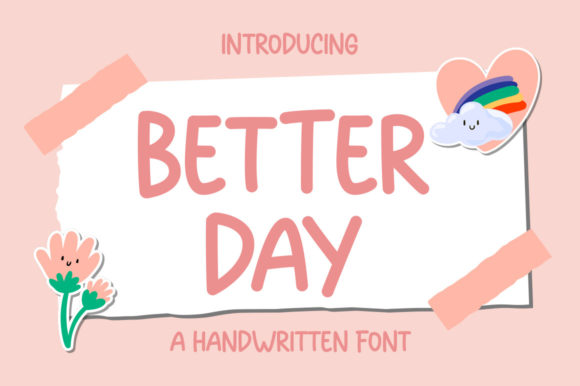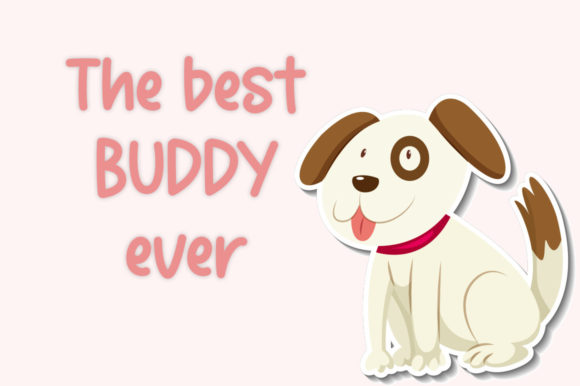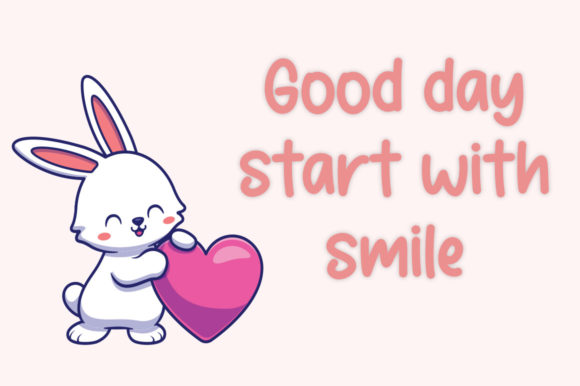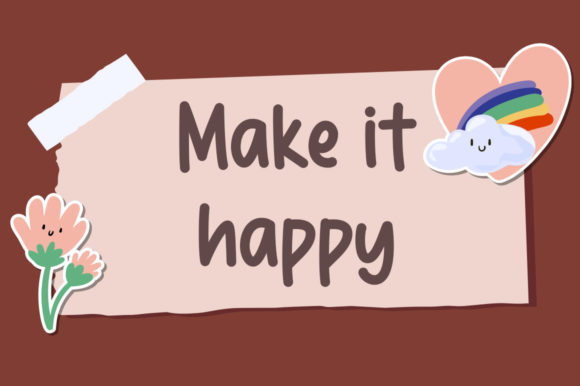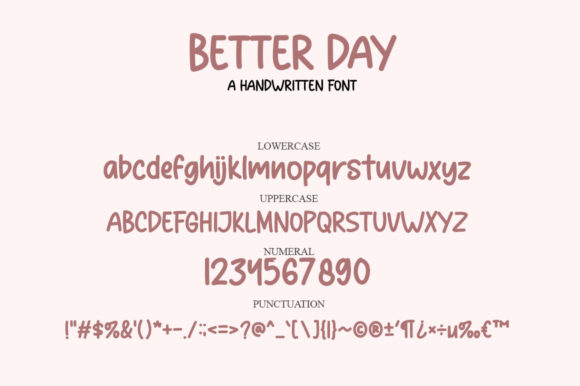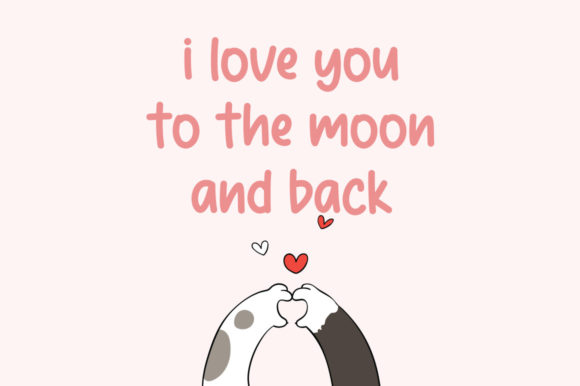
Better Day Font
About Better Day Font
“Better Day” is a cute and simple-lettered handwritten font that adds a charming and authentic touch to your designs. This font is particularly well-suited for creating chalkboard quotes, teaching materials, and other projects where a personalized and realistic look is desired.
The font’s handwritten style exudes a sense of warmth and approachability, making it perfect for educational materials and designs that aim to connect with the audience on a personal level. The simple and straightforward letterforms contribute to the font’s readability and versatility, allowing it to be used in a variety of design contexts.
Whether you’re creating educational resources, inspirational quotes, or other creative projects, “Better Day” will help you achieve a genuine and inviting aesthetic that resonates with your target audience.
In essence, “Better Day” is more than just a font—it’s a tool for creating designs that feel authentic, approachable, and relatable. Its cute and simple-lettered handwritten style brings a touch of realism to your creations, making them more engaging and memorable for your audience.